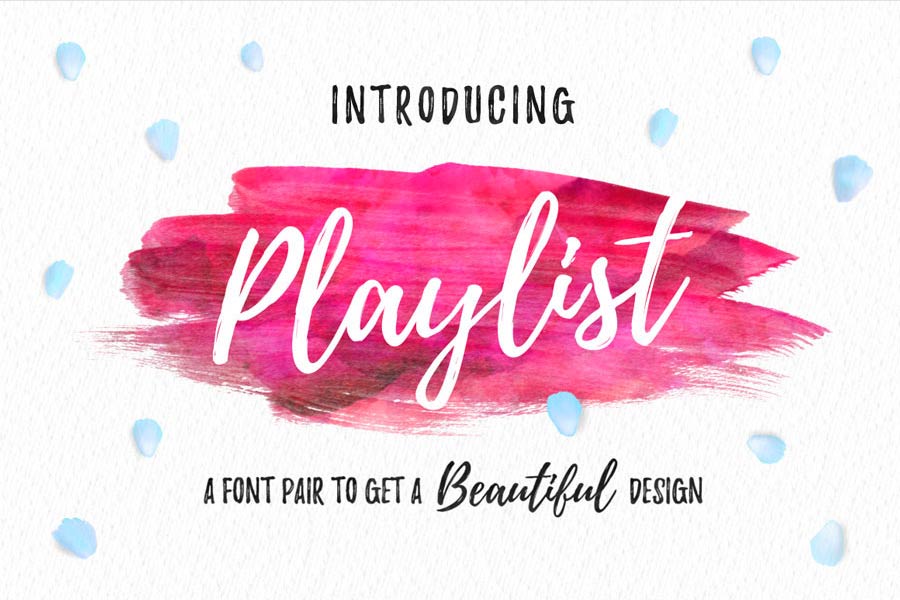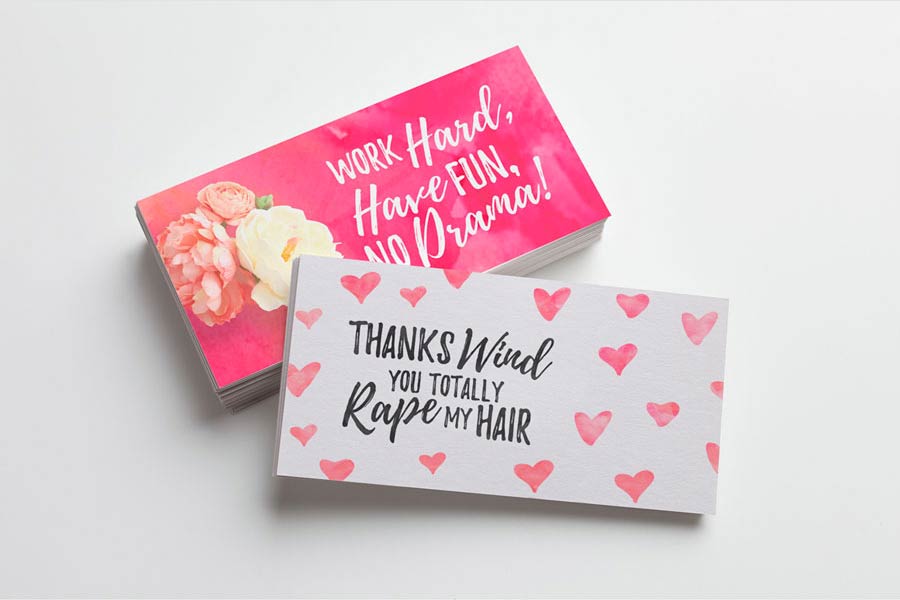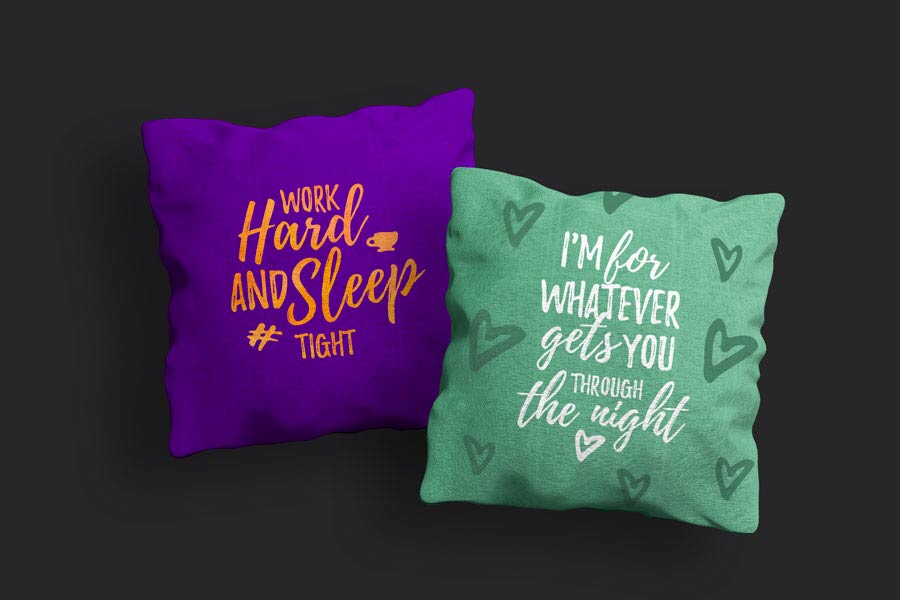
Playlist is an beautiful and playful hand-drawn font with dry brush styles. It comes with 3 font styles: Scripts, Caps and Ornaments, allowing everyone to mix and match them to create a unique and yet harmonic design.
Please have a look at the sample designs with Playlist fonts applied on it. It works well with print and digital designs, especially for invitation cards, hippie merchandises and more. Best thing is you can use it for commercial projects!